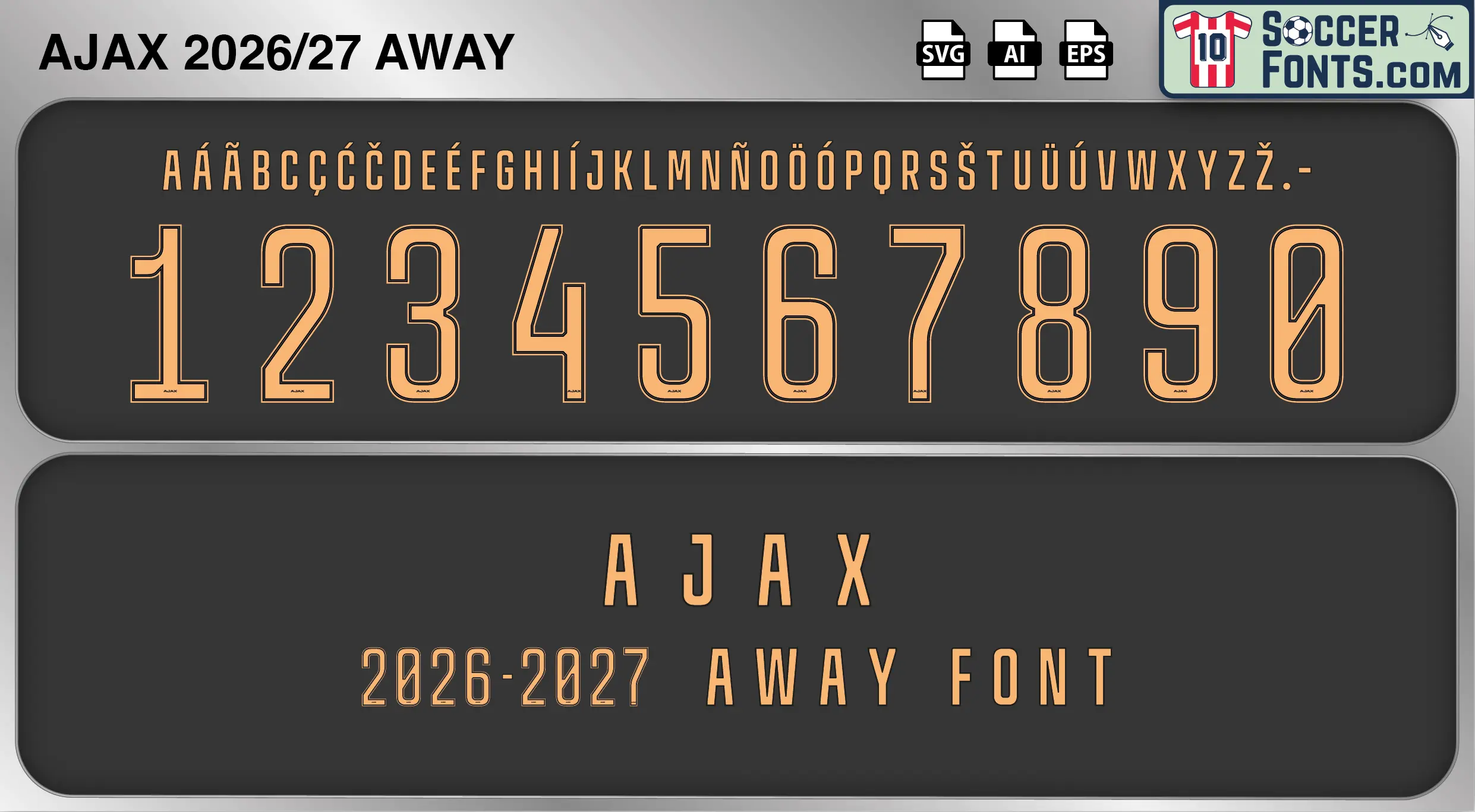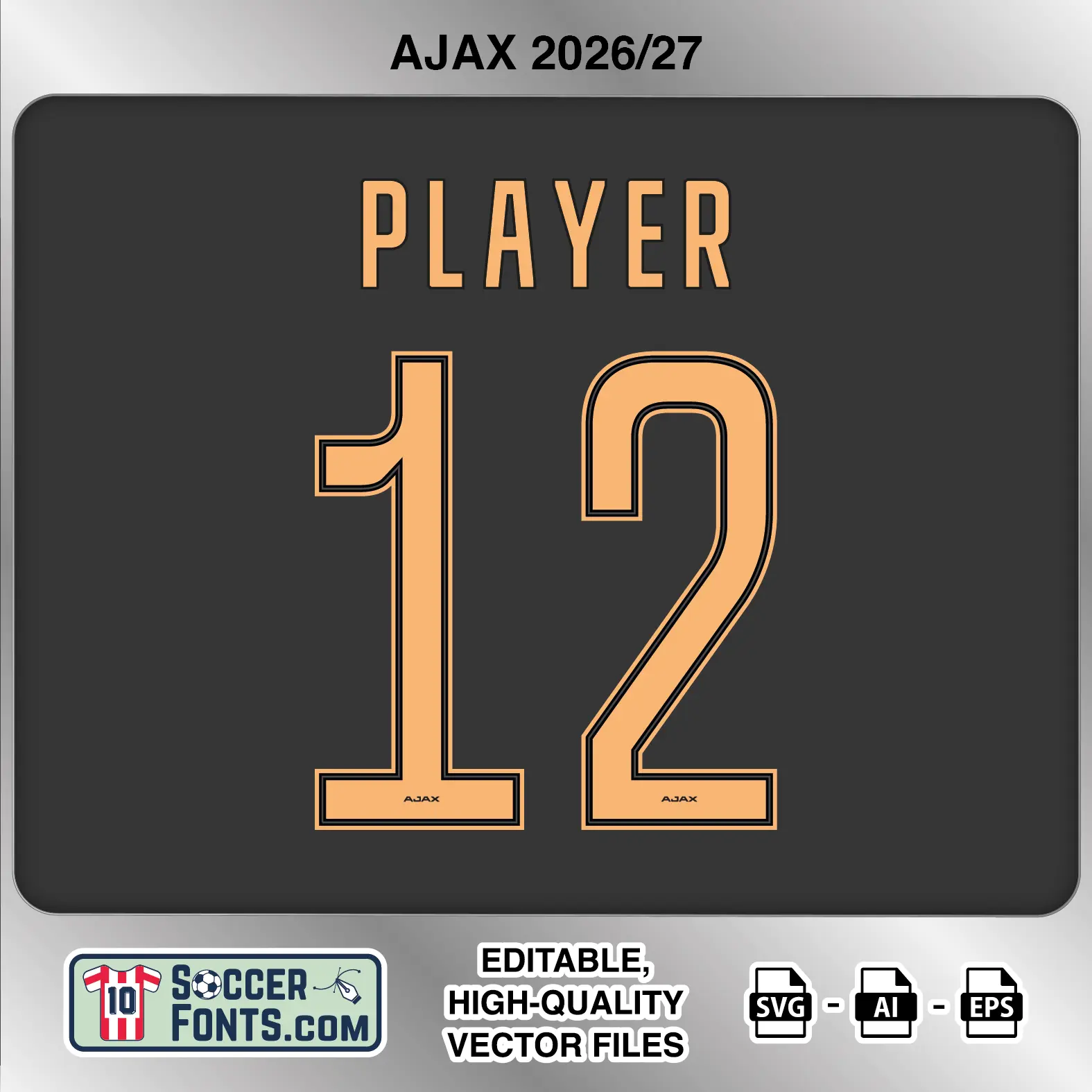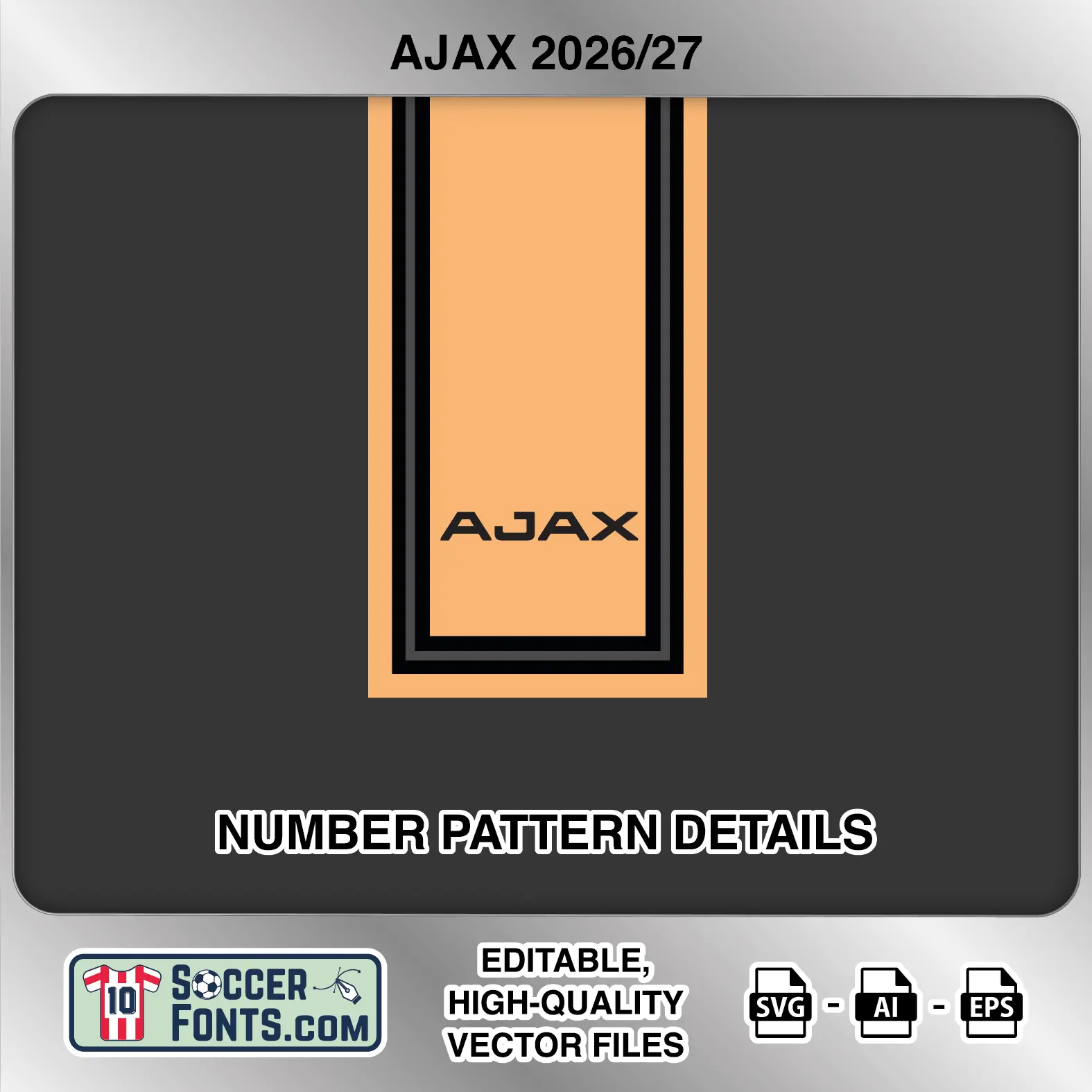
About Ajax 2026-27 Font Away
Download Ajax 2026-27 font away, an editable soccer jersey lettering design in vector format inspired by the Ajax away kit style used during the 2026-27 football season. This football font artwork is prepared for football shirt recreations, custom jersey projects, football kit mockups and sports graphic design workflows.
Visual Identity of the Font Design :
The Ajax 2026-27 away lettering uses a tall and strongly condensed construction with narrow uppercase characters and elongated shirt numbers. The player-name alphabet has straight, compact strokes with restrained curves, allowing longer names to fit naturally across the shirt. The numbers follow the same narrow proportions but use a distinctive outlined treatment, with a peach-orange main color separated by fine dark internal and external lines. Rounded figures such as 0, 3, 6, 8 and 9 have long vertical bowls, while 2 combines a rounded upper section with a sweeping diagonal and flat base. The 4 uses an open angular construction, and the 7 has a broad horizontal top leading into a long diagonal stroke. A small “AJAX” wordmark is positioned at the bottom of each numeral. The supplied character set also includes numerous accented uppercase letters for international player names.
Context of 2026-27 Season for Ajax :
For collectors and football kit projects, the Ajax 2026-27 Font Away represents the away identity of this particular campaign. Used during a season featuring Eredivisie competition, European fixtures and the traditional rivalry with Feyenoord, the Ajax 2026-27 Font Away provides a clear visual reference to this stage of the club’s modern era.
Ajax 2026-27 away football shirt font showing alphabet letters and jersey numbers
Ajax 2026-27 Font Away